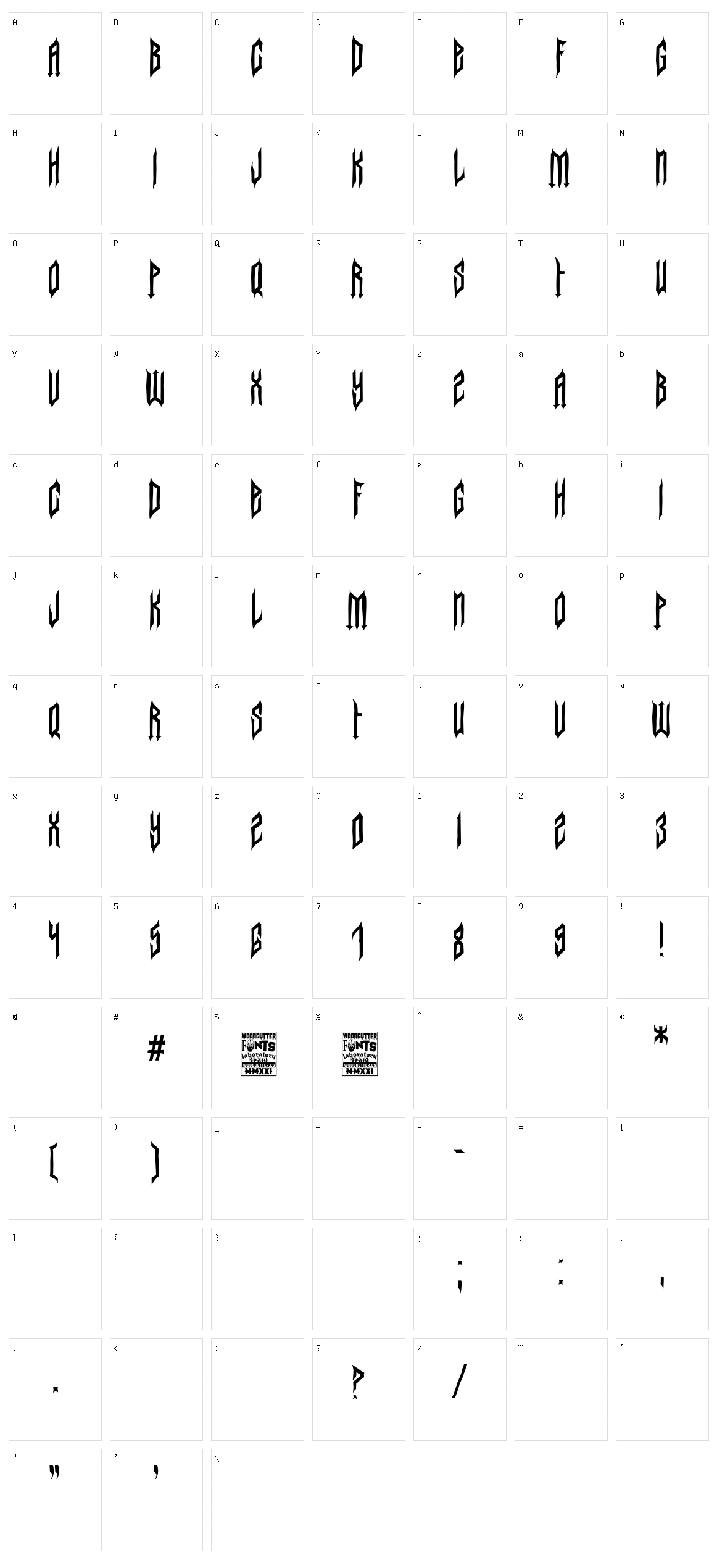
The free font Berlin Dark Party is carefully designed by Woodcutter, showcasing a thoughtful balance of creativity and usability and belongs to the Gothic font family. When you download the ZIP file, it contains only 31.1 KB of font files, making it lightweight and quick to download. Please review the license details below to understand permitted usage and distribution rights. If license information is not available, we recommend using this font for personal projects only or contacting the author directly for commercial usage permissions.